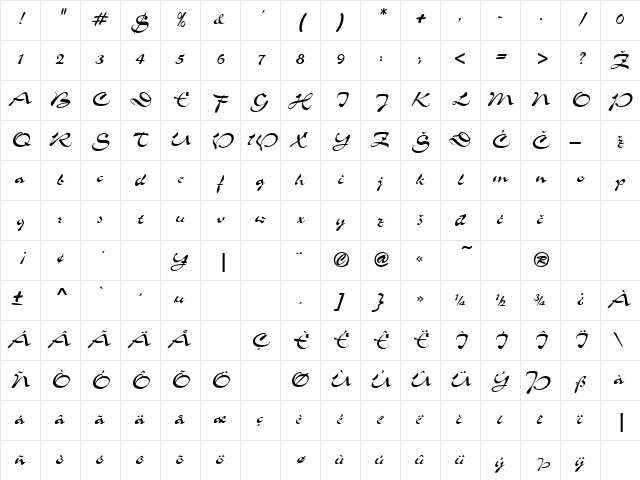
Shogun Regular
Shogun Family
Design Context for Shogun
Shogun is a composed and adaptable typeface that performs quietly and consistently across a wide range of design contexts.